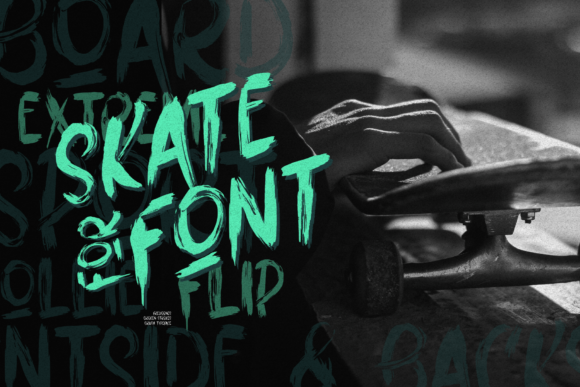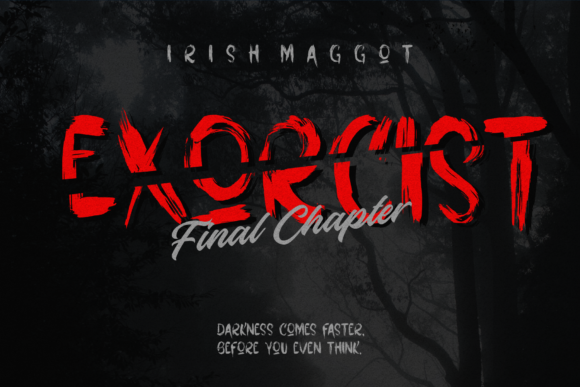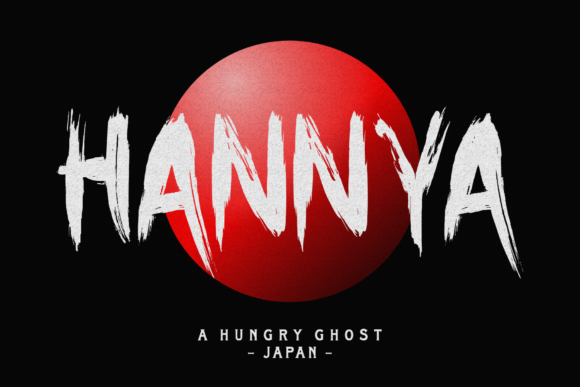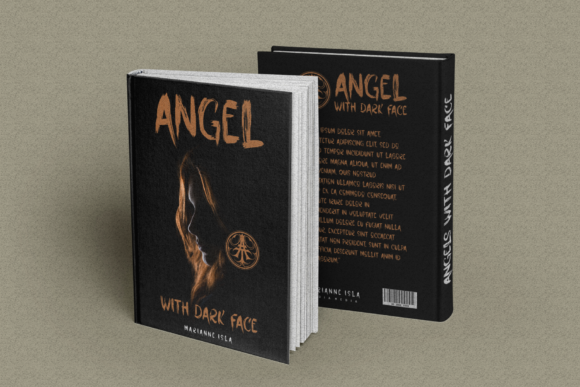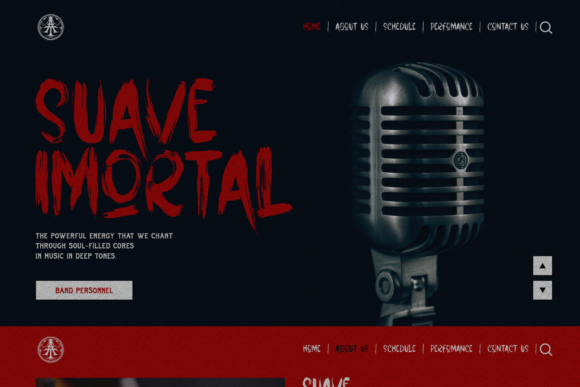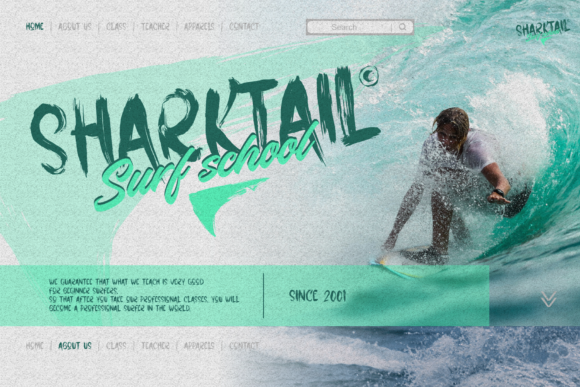
The Perfect Brush Stroke: Unlocking the Power of Fredbones Font
Have you ever stared at a blank canvas, a blank sheet of paper, or a blank digital screen, waiting for inspiration to strike? The creative process can be both thrilling and intimidating, but what if you had the perfect tool to spark your imagination?
Enter Fredbones Font, a bold and striking brush-style display font designed to add an intense touch to any crafting project. Whether you’re a seasoned designer or a crafty enthusiast, this font is sure to elevate your work and leave a lasting impression. With its unique, hand-crafted look and feel, Fredbones Font is the perfect addition to any designer’s toolkit, allowing you to create truly one-of-a-kind pieces that stand out from the crowd.
Fredbones Font Key Features
- Font Family: Fredbones Font is a unique, hand-drawn font designed for various digital and print applications.
- Character Set: Includes a comprehensive set of characters, including uppercase and lowercase letters, numbers, and punctuation marks.
- Size and Resolution: Designed for use at medium to large sizes, with optimal readability at 14-24 points and resolutions of 300 DPI or higher.
- Unique Characteristics: Features a distinctive, hand-drawn style with subtle imperfections, giving it a warm and inviting feel.
Designer Review: Fredbones Font
Overall, I have mixed feelings about the Fredbones Font. Here’s what I think:
First of all, I love the unique character of this font. It’s quirky and playful, making it perfect for projects that need a bit of whimsy. The font’s bold lines and rounded edges give it a friendly, approachable feel that’s hard to resist.
I also appreciate the font’s versatility. It works well in both digital and print applications, and its wide range of weights and styles makes it easy to use in various contexts.
- Although the font is highly customizable, it can be a bit overwhelming to navigate the numerous options.
- The font’s irregular shape can make it difficult to read at small sizes, especially for those with vision impairments.
- The font’s uniqueness can also be a drawback, as some users may find it too playful or childish for certain applications.
Despite its limitations, I think the Fredbones Font is a great addition to any designer’s toolkit. Its unique character and versatility make it perfect for projects that need a bit of flair. However, it may not be the best choice for projects that require a more formal or serious tone.
Practical Application Guide for Fredbones Font
For optimal use, pair Fredbones Font with bold and italic versions for maximum impact.
Use Fredbones Font for headings, titles, and emphasis in designs, documents, and presentations.
Logos and branding materials
Invitations and event promotions
Marketing materials and brochures
Alternatives to Fredbones Font
Playfair Display is an elegant and luxurious serif font that is perfect for creating a high-end look in branding, advertising, and editorial design. It features intricate details and swashes, making it ideal for special occasions and luxury brands.
Comparison to Fredbones Font: While Fredbones Font has a more distressed and vintage feel, Playfair Display is more refined and sophisticated. Playfair Display is a better choice when you want to convey elegance and luxury, whereas Fredbones Font is better suited for a more rugged and vintage aesthetic.
Great Vibes is a beautiful and elegant script font that is perfect for creating a warm and inviting atmosphere in branding, packaging, and editorial design. It features flowing lines and a natural feel, making it ideal for creative and artistic brands.
Comparison to Fredbones Font: While Fredbones Font has a more distressed and vintage feel, Great Vibes is more modern and elegant. Great Vibes is a better choice when you want to convey a sense of creativity and artistry, whereas Fredbones Font is better suited for a more rugged and vintage aesthetic.